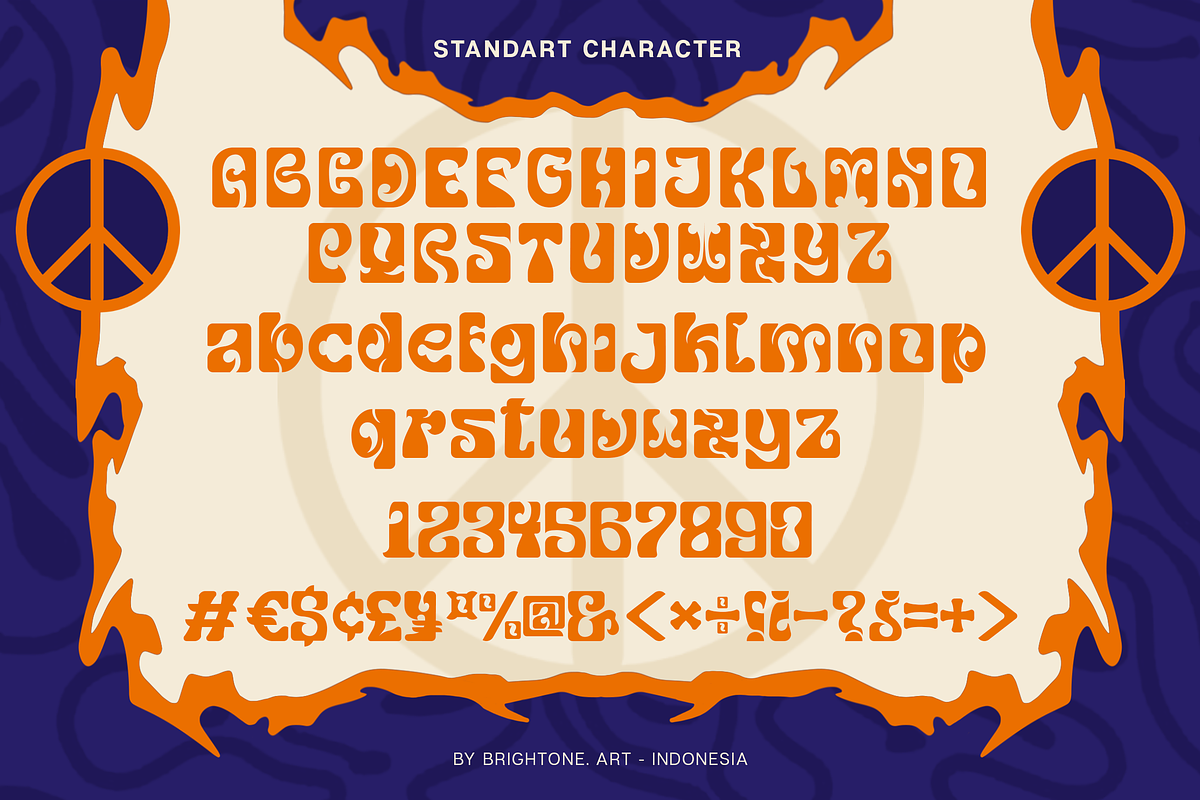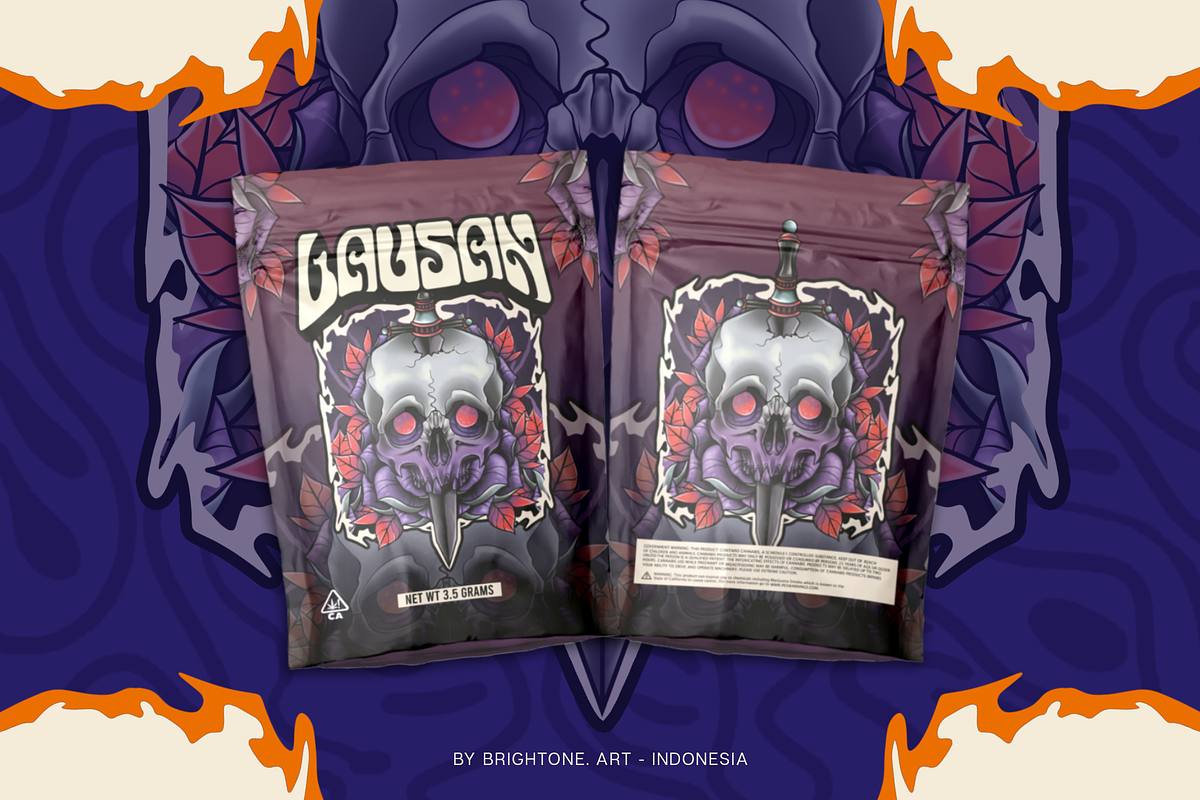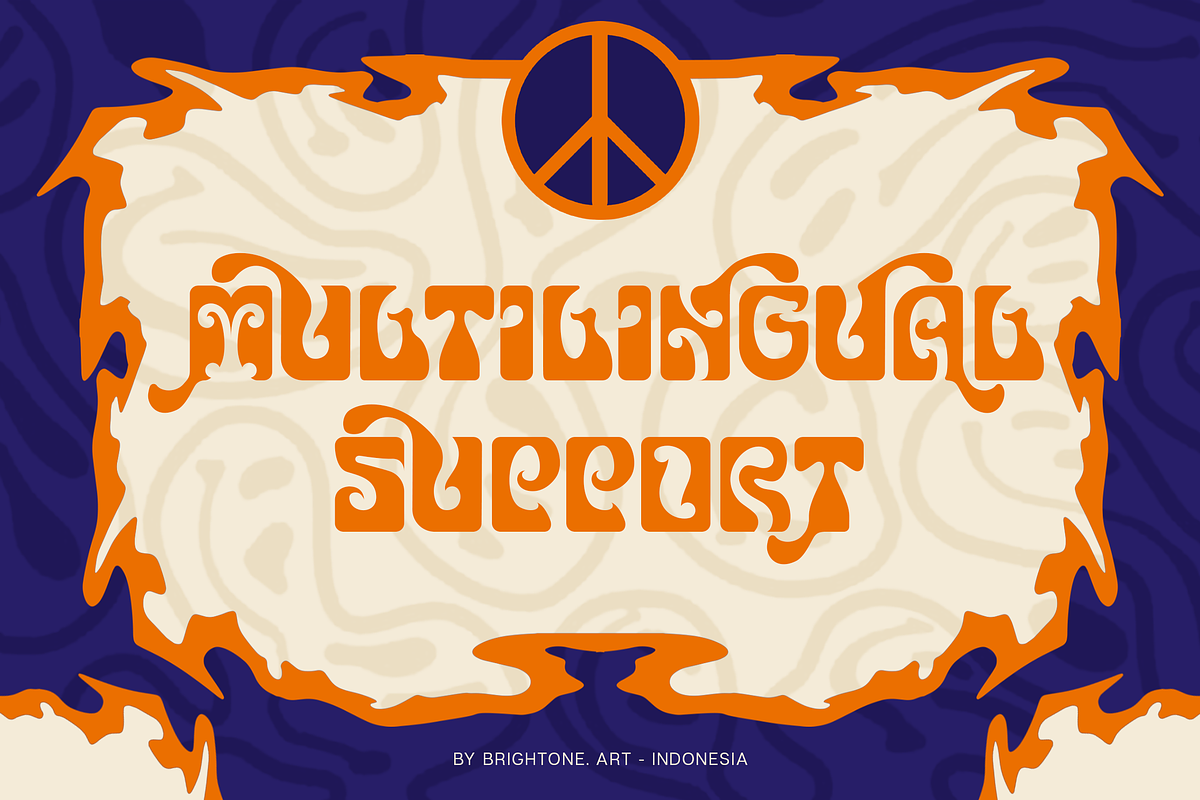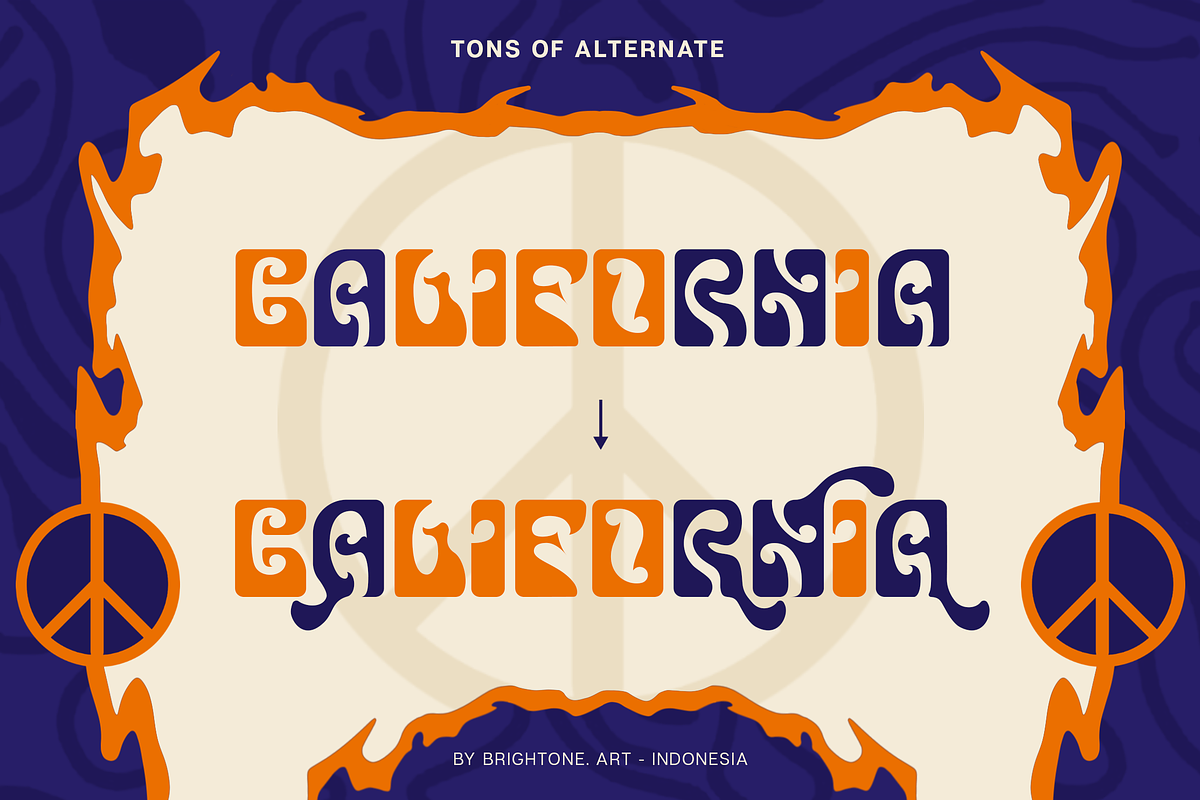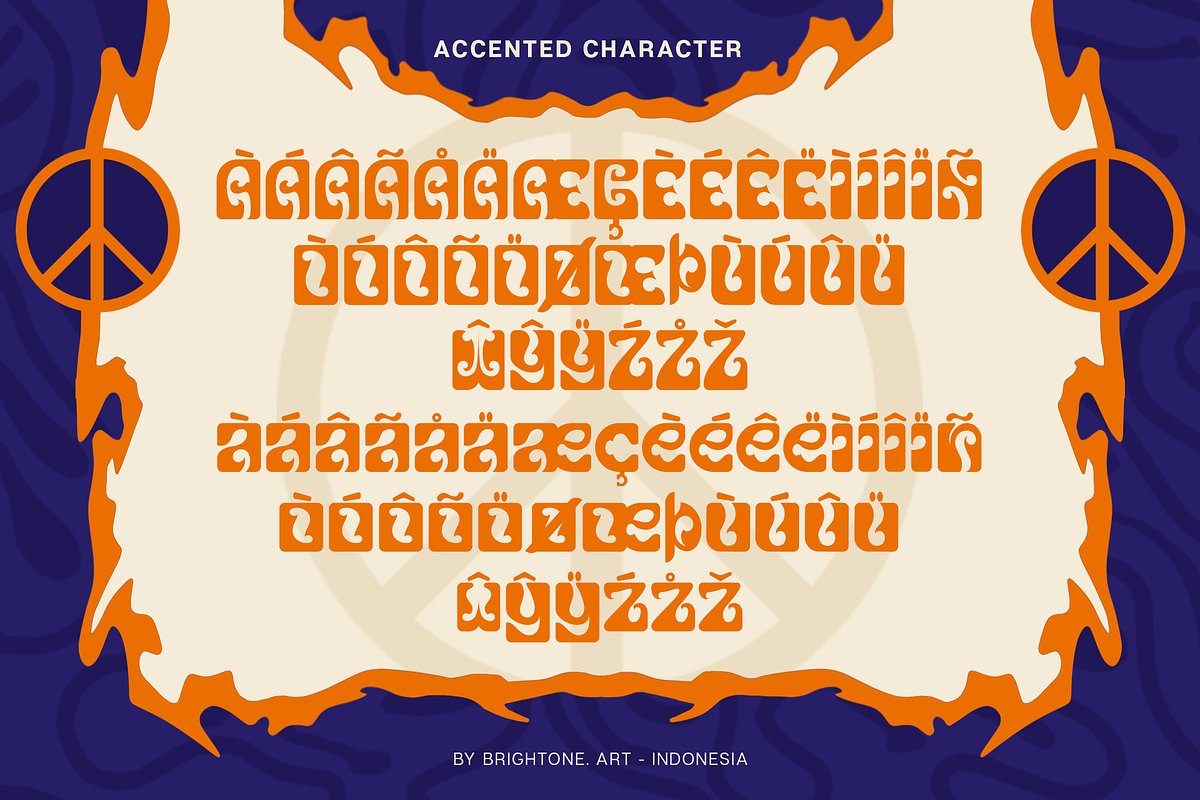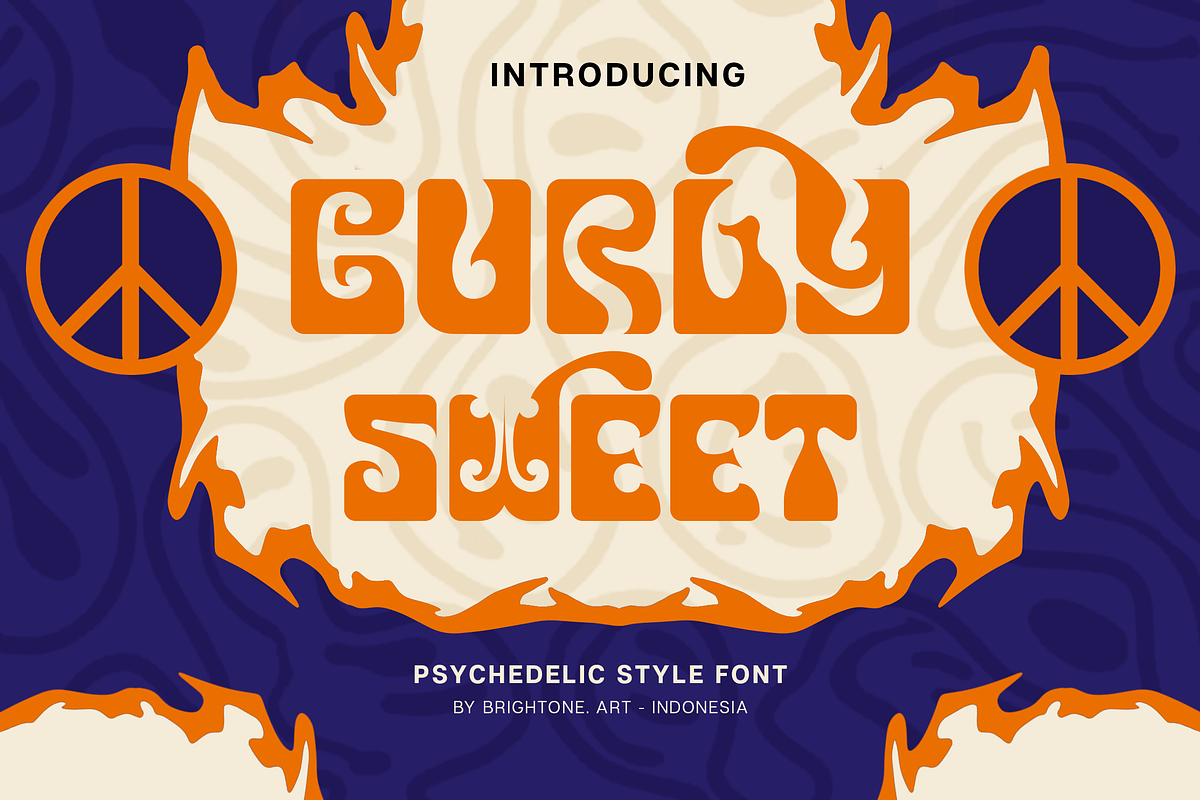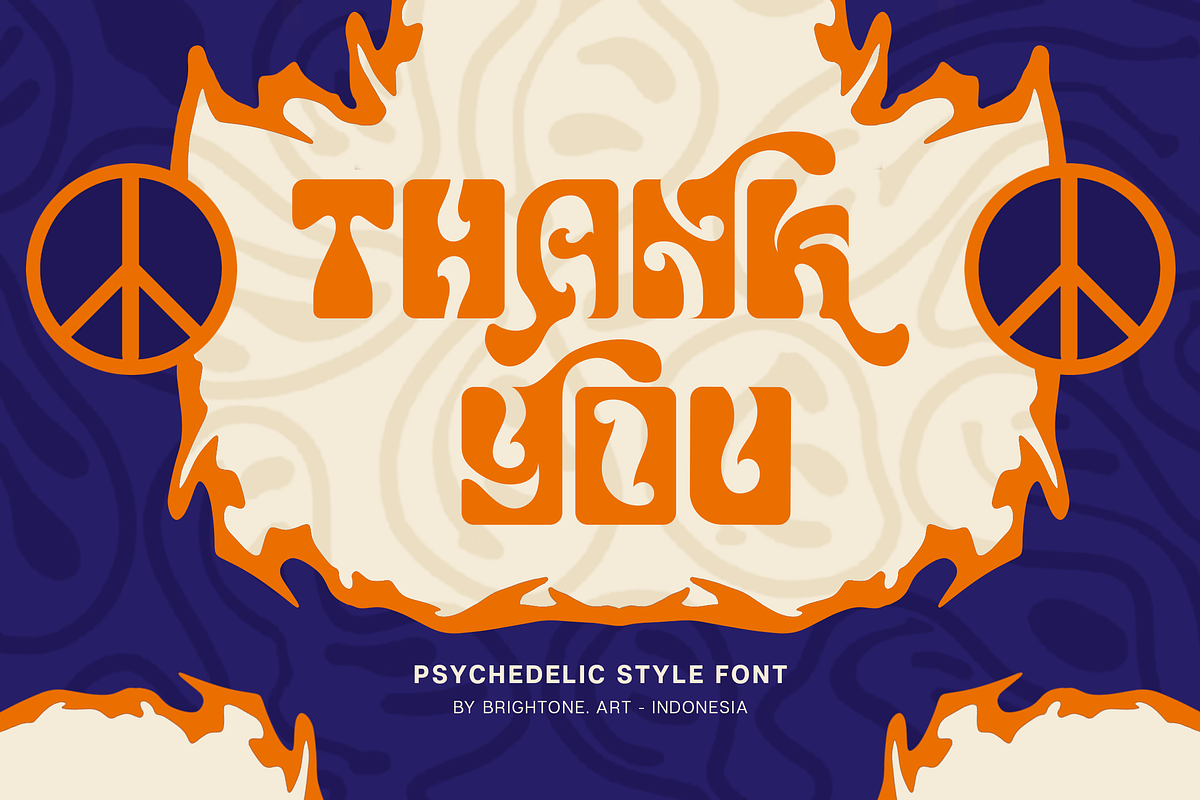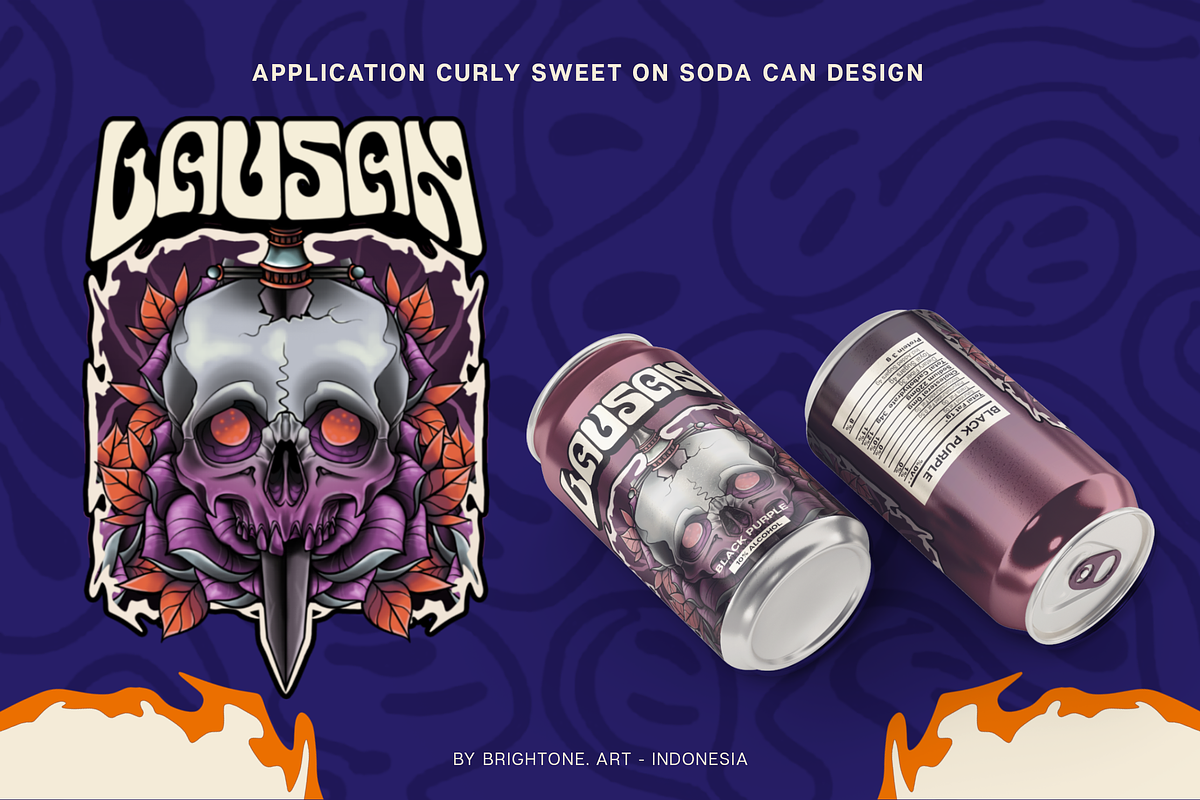
Curly Sweet - Psychedelic Style
CURLY SWEET is psychedelic font with good style and trippy touch, these font includes:
- Uppercase and Lowercase Characters, Numbers and Punctuation.
- Unique Alternates.
- Multilingual Support (Eastern, Central and Western European countries).
CURLY SWEET font is suitable to use for all purpose for your logo lettering, logo, label, packaging, sticker, branding, pouch bag and many more.